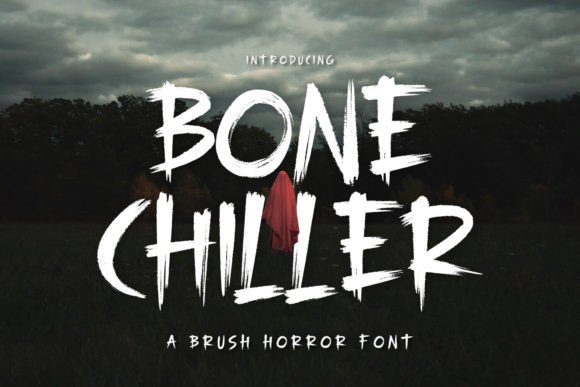
The Bonechiller Font: A Spooky yet Modern Design Essential
I’ll never forget the night I was working on a Halloween-themed project for a client, and I just couldn’t find the right font to capture the spooky yet modern vibe they were looking for. I scrolled through page after page of Google search results, but nothing seemed quite right. That was when I stumbled upon the Bonechiller font – a brush horror font that instantly sent shivers down my spine. ✨
With its scary and modern feels, Bonechiller is the perfect addition to any design project that needs a touch of horror and whimsy. In this article, I’ll share my honest review of the font, a practical guide on how to use it, and some similar fonts you might love.
My Honest Review of Bonechiller
- ✨ Unique and eye-catching design: Bonechiller’s brush strokes and horror-inspired elements make it stand out from other fonts.
- ✅ Versatile: This font can be used for a wide range of design projects, from branding and logo design to packaging and posters.
- 💡 Modern and spooky: Bonechiller perfectly captures the modern and spooky feels that I was looking for in my Halloween project.
While Bonechiller is an amazing font, there are a few things to keep in mind: 🤔
- ⚠️ Legibility at small sizes: Bonechiller can be a bit tricky to read at very small sizes, so make sure to test it out before committing to a specific size.
- ⚠️ Limited use cases for formal designs: Due to its spooky and modern design, Bonechiller might not be the best fit for formal or traditional design projects.
The Backstory of Bonechiller
The Bonechiller font was designed with the intention of capturing the spooky yet modern feels of the horror genre. While the designer’s inspiration is shrouded in mystery, it’s clear that they drew inspiration from classic horror movies and modern design trends.
Q: Is Bonechiller suitable for body text?
A: While Bonechiller is a beautiful font, it’s best suited for headlines and titles. Its unique design and brush strokes can make it difficult to read in large blocks of text.